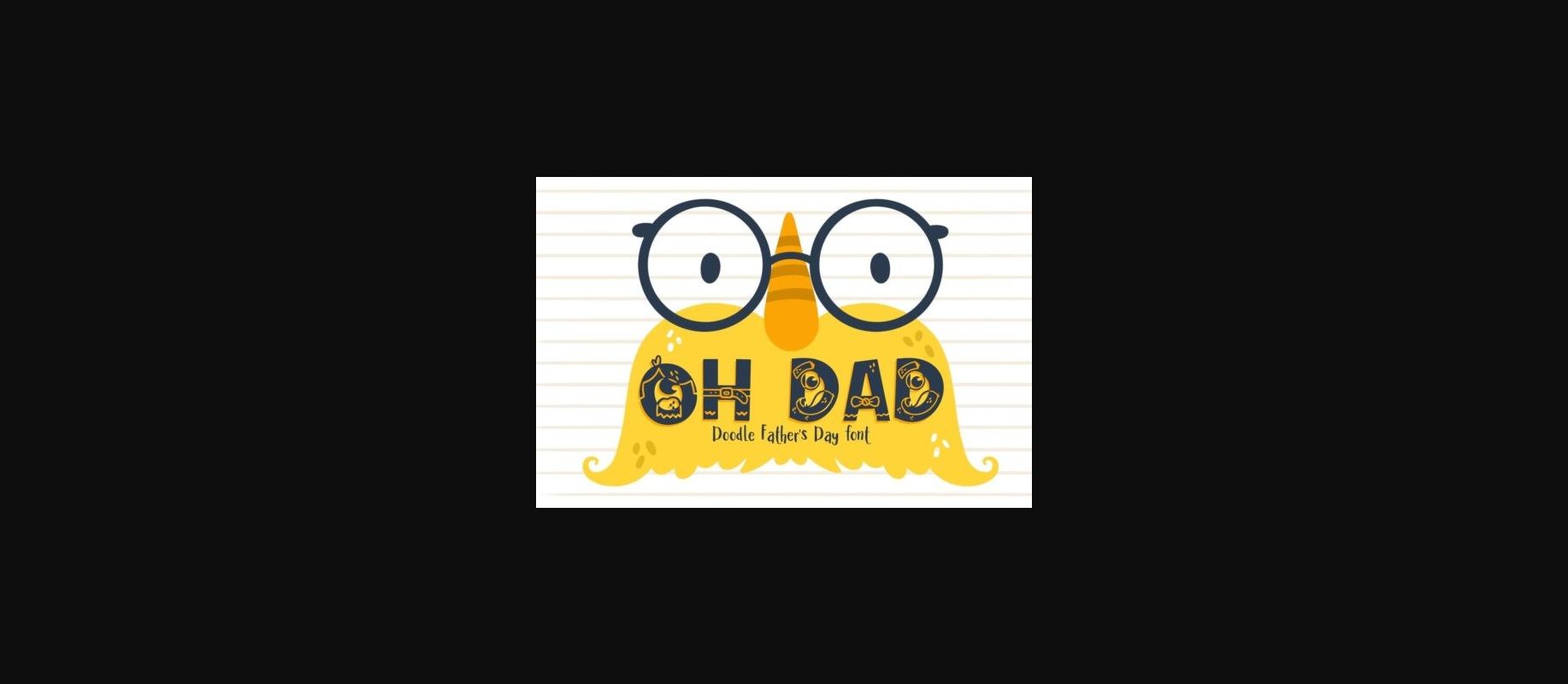
About Oh Dad Font
Oh Dad is a playful, decorative font where some glyphs are accessorized with an element that reminds us of our Dad’s, for example, a belt, bow tie, monocle, and a mustache! This is the perfect font to use for your Dad’s birthday card or father’s day presents!